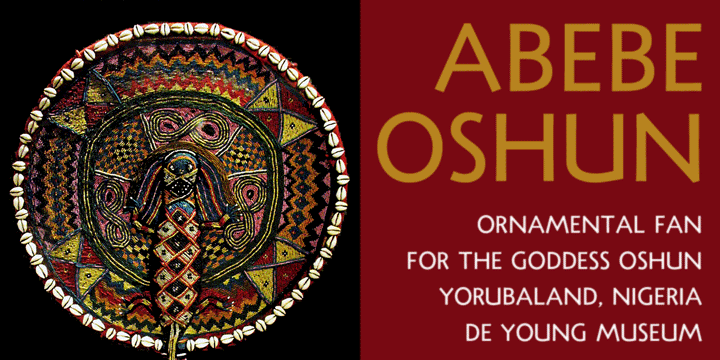
Tambor Regular
Over the years I have bought many books and music CDs in persuit of my passion for African and Latin (and especially Afro-Latin) cultures. I've noticed that many of the covers of these books and CDs feature either of two popular display fonts that are, in my opinion, very much overused. As an alternative, I designed Tambor™.
The Tambor family is available in seven styles:
Adornado, Light, Regular, Medium, Bold, Black, and Inline